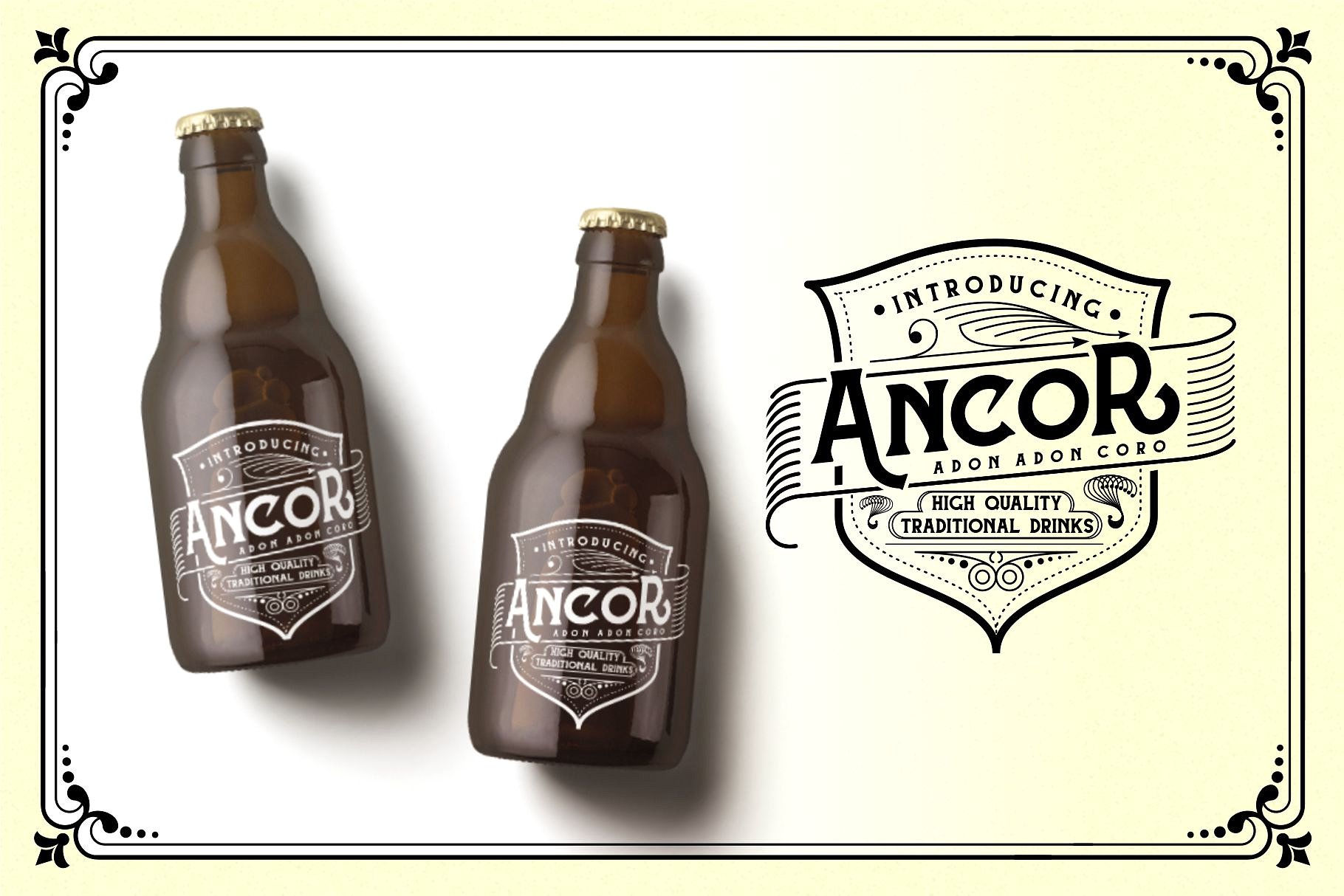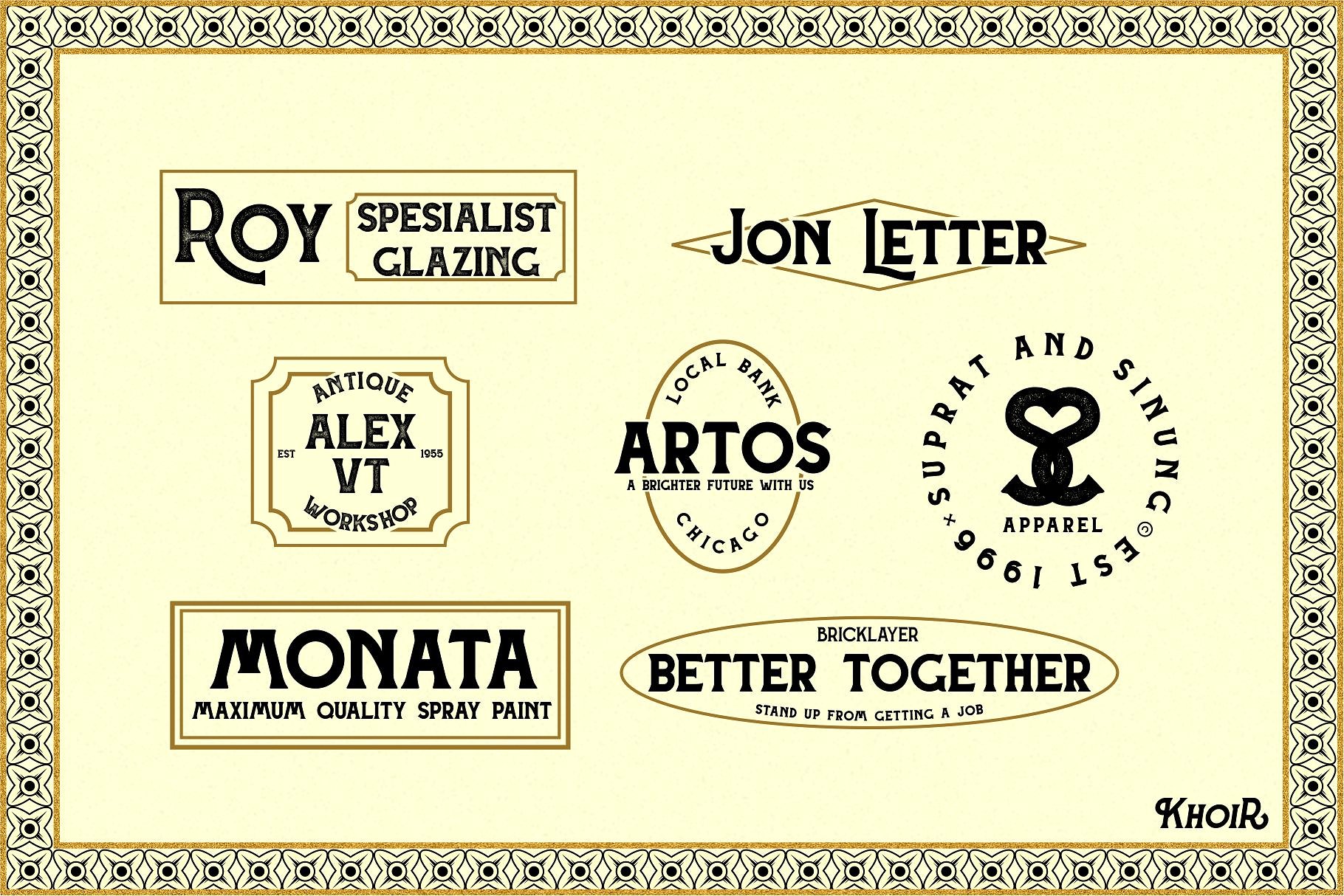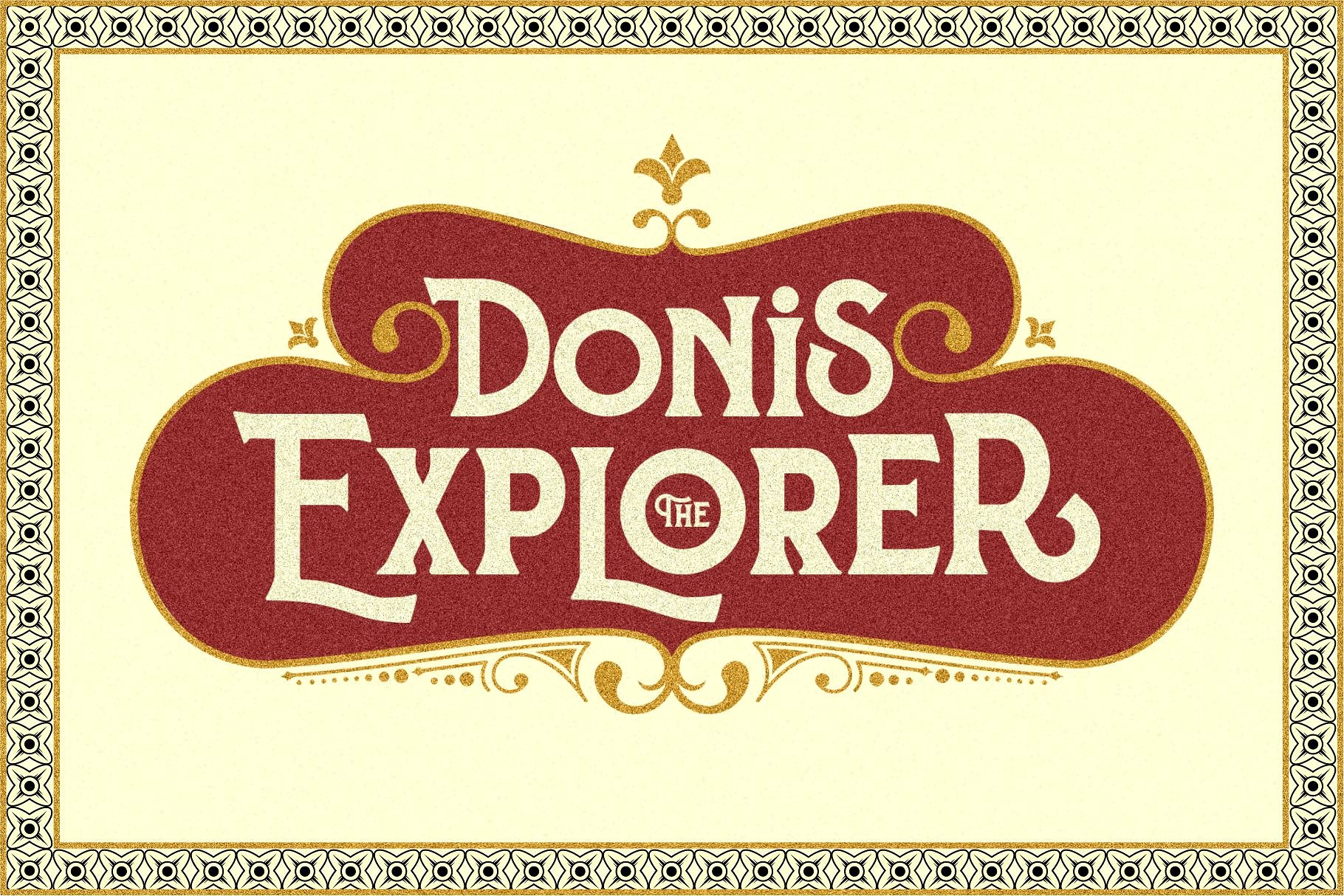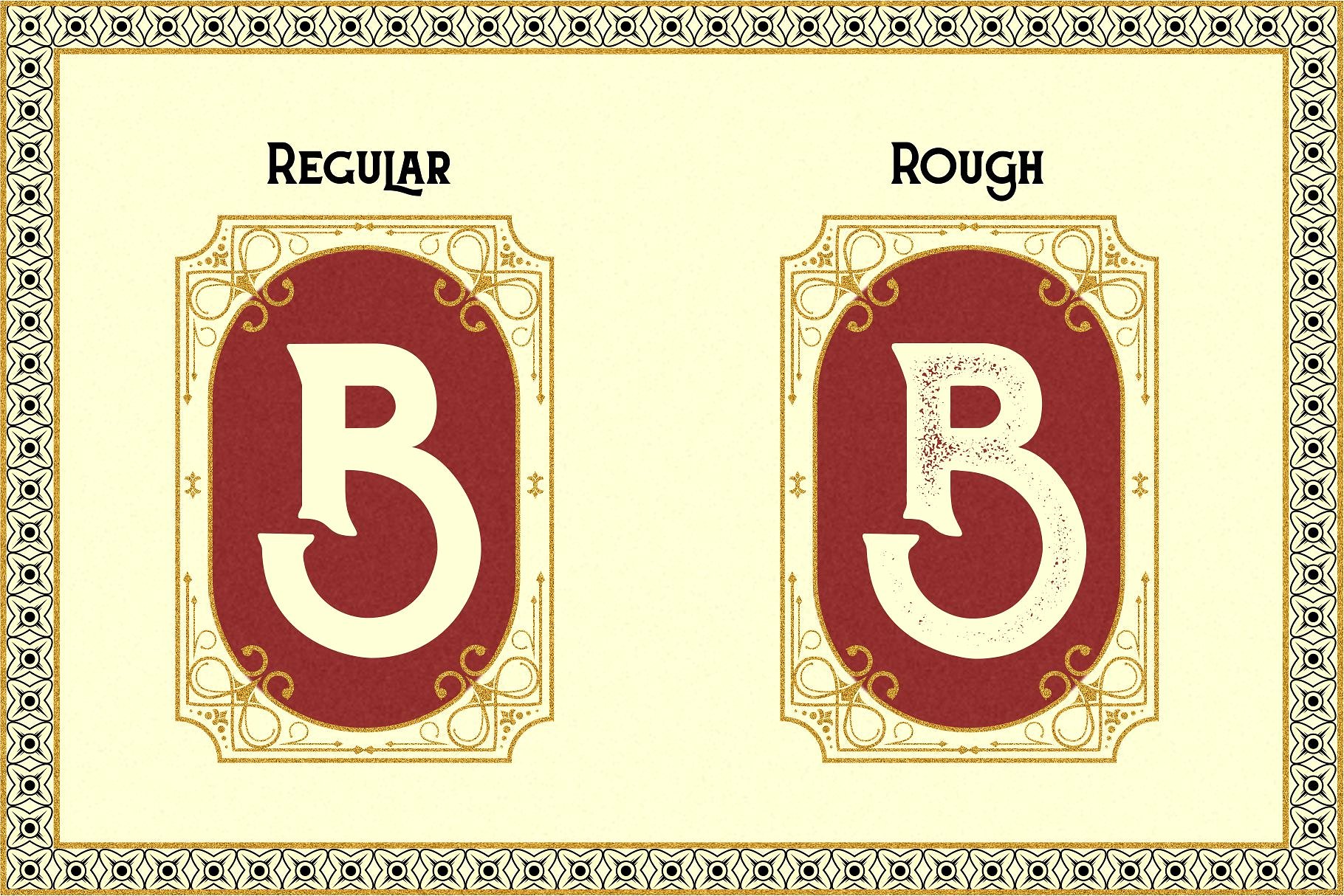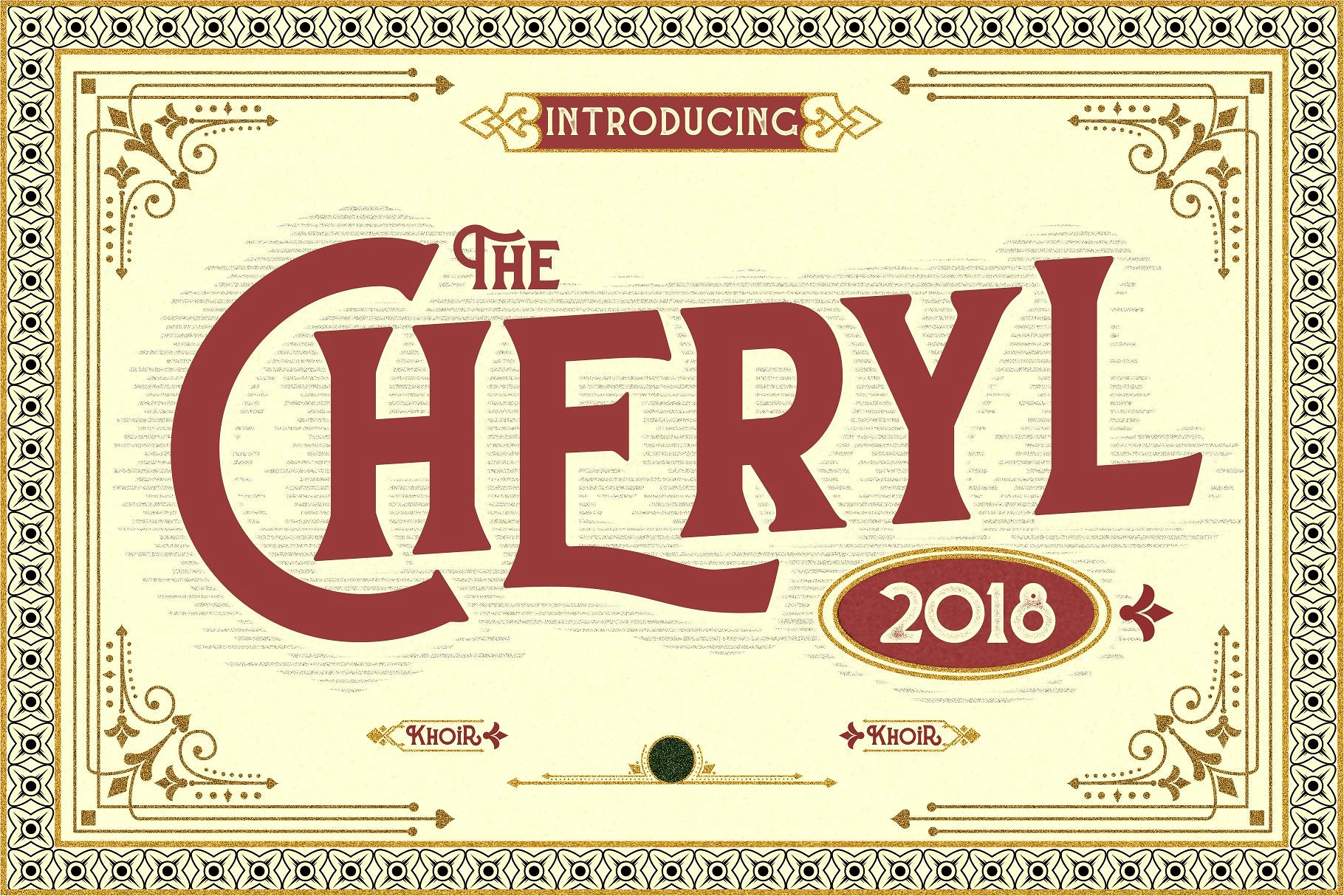
CHERYL Typeface
Hi designer. Introducing CHERYL Font! CHERYL Has an artistic style, is elegant to enjoy and has classic nuances and unique unique styles to be combined with each other, CHERYL Offers two font variations, namely Regular and Rough, there are 28 bonuses and many font alternatives to make You make it easy to design, for example: labels, logos, badges, posters, clothes, and other typographic designs.